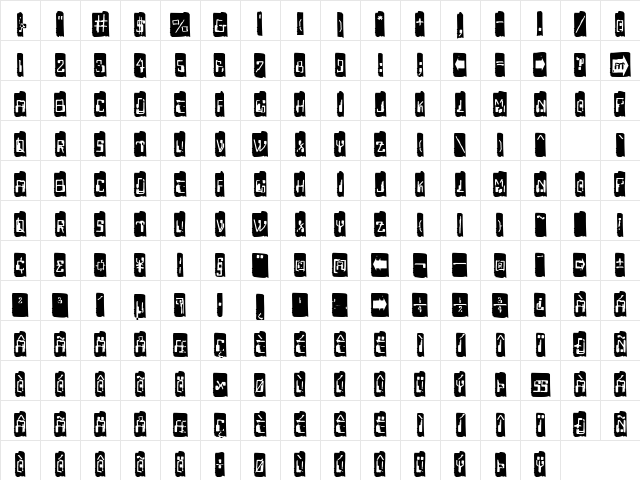
Capricorn38Cameo Regular Free Font
Capricorn38Cameo Regular
Design Context for Capricorn38Cameo
Capricorn38Cameo is a composed and adaptable typeface that performs quietly and consistently across a wide range of design contexts.